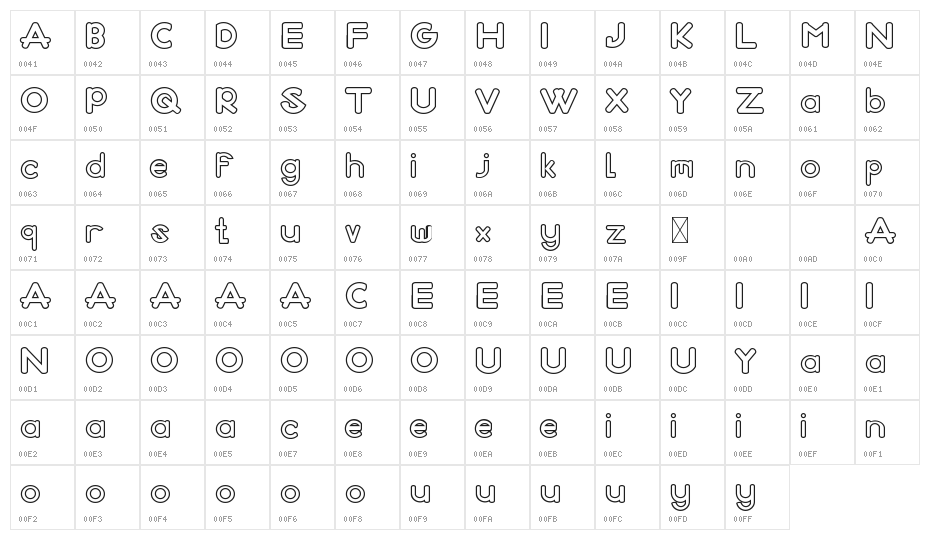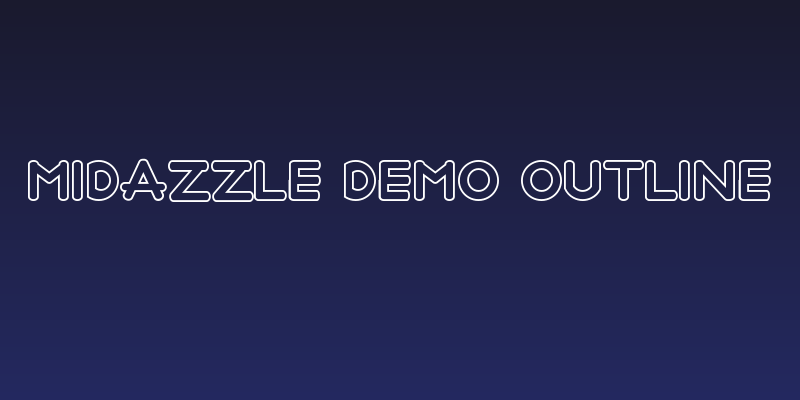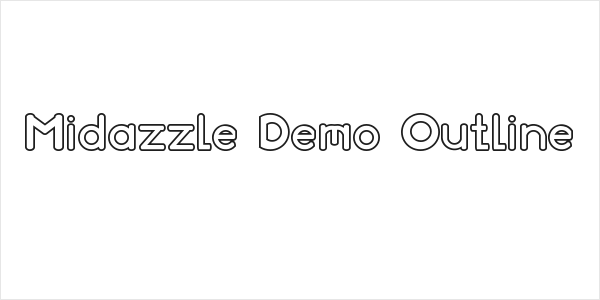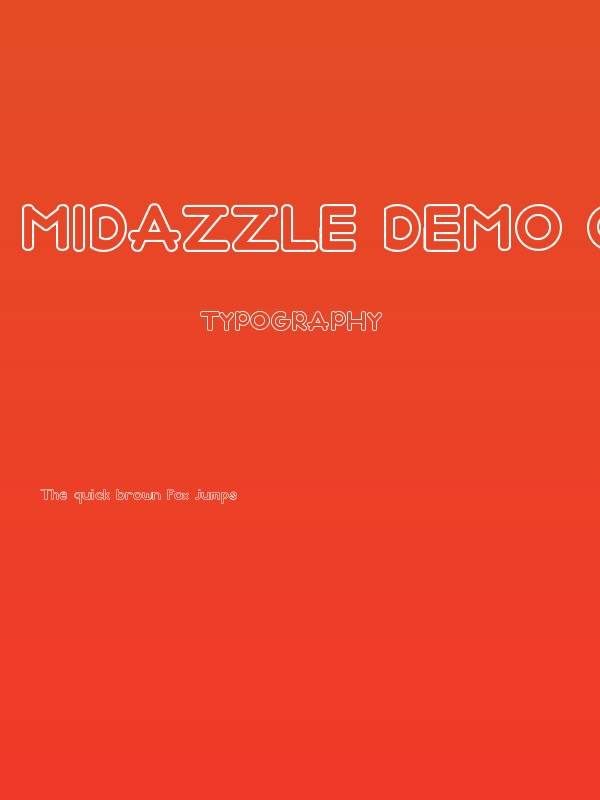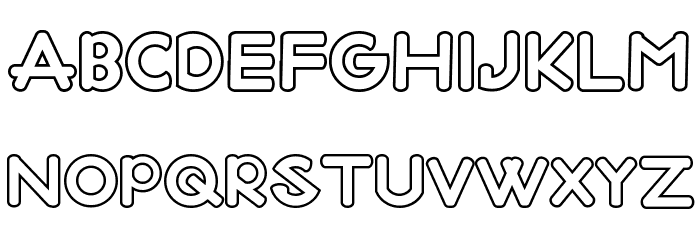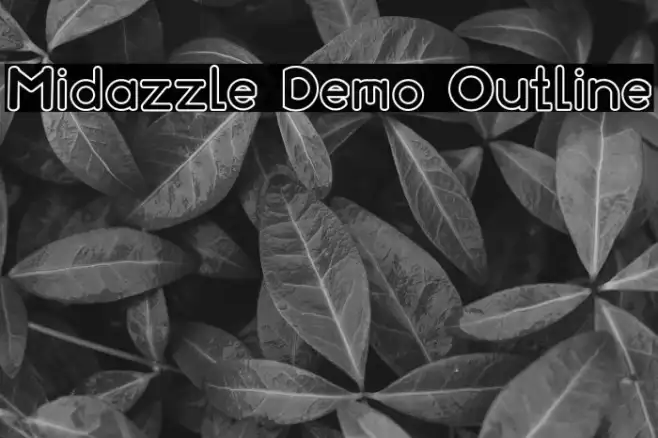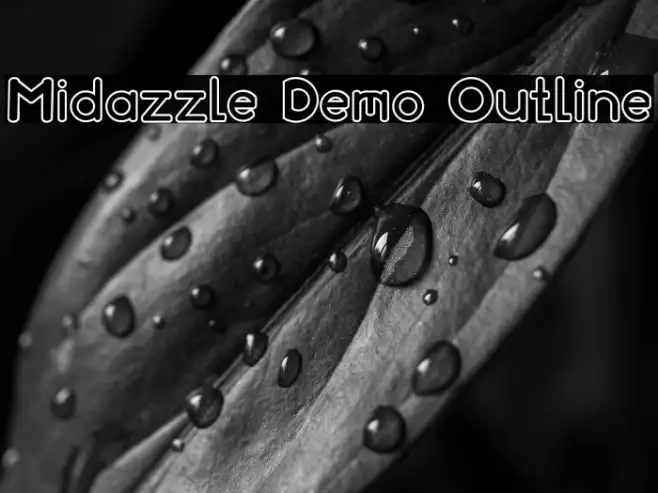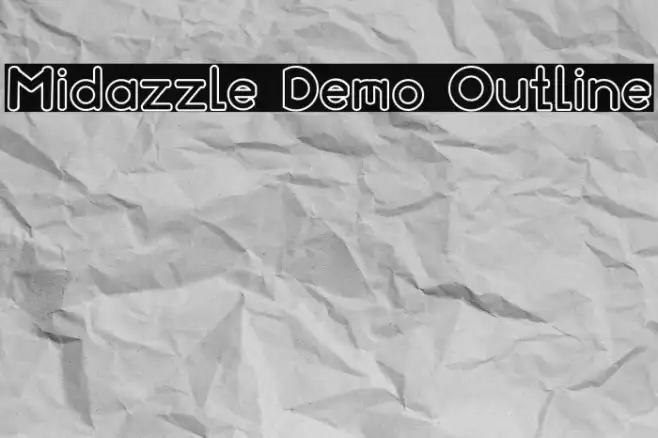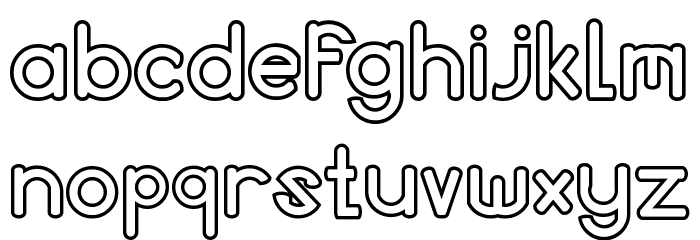
Midazzle Demo Outline Font
Midazzle Demo Outline Description
This font features a playful and modern outline style, characterized by its bold and rounded letterforms. The uppercase and lowercase letters maintain a consistent thickness, creating a harmonious appearance. The outlines are smooth and even, giving the font a clean and approachable look. The design is versatile, making it suitable for a variety of creative projects. Its unique outline style adds a layer of depth and interest, making it stand out in any design context. The font is particularly effective in settings where a fun and engaging aesthetic is desired.